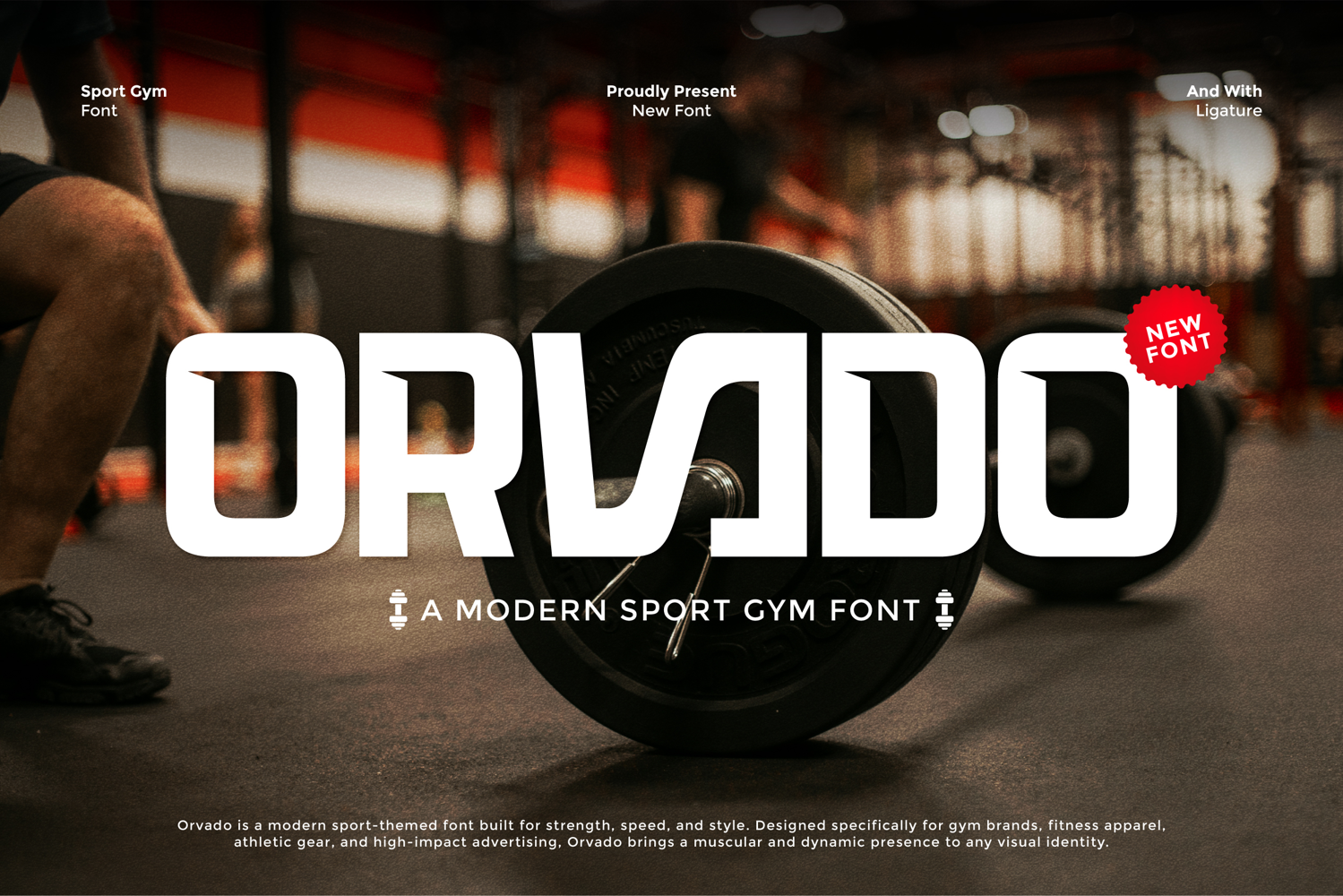
Orvado
ORVADO
ORVADO – Modern Sport Gym Font
ORVADO is a modern display font crafted for the world of sports, gym, and dynamic branding. With its bold structure, sharp edges, and powerful presence, ORVADO brings energy and strength to every design it touches. Whether you're working on athletic apparel, gym promotions, or bold logo projects, ORVADO delivers impact and clarity in every letterform. It captures the essence of movement and discipline, making it a go-to choice for modern fitness brands and high-intensity design concepts.
Who Should Use ORVADO?
ORVADO is made for designers, brands, and creators who want to bring bold energy and a modern athletic vibe to their work. Whether you're building a fitness brand, designing gym posters, creating team logos, or crafting motivational merchandise, ORVADO is the perfect match for strong, standout visuals.
A Must-Have Font for Brand, Logo, and Sport Creators and Designers
ORVADO is the perfect choice for designers and creators who want to elevate their sport-inspired branding. With its bold and energetic form, this font brings a modern edge to fitness logos, gym merchandise, team identities, and high-impact marketing. A must-have for those building brands that embody strength, speed, and determination.
Why Choose ORVADO for Brand and Logo Projects?
ORVADO delivers a dynamic, confident presence that’s perfect for modern branding. Its bold and sporty aesthetic makes it ideal for gym logos, fitness brands, activewear, and energetic design themes. Whether you're creating a logo, a headline, or promotional material, ORVADO ensures your message comes across with power, precision, and a sleek contemporary style.
Suitable For:
• Sport and fitness branding
• Gym and workout apparel
• Athletic team logos and identities
• Energy drink or supplement packaging
• Bold posters and event promotions
• YouTube thumbnails and content for fitness creators
• Gaming and esports team branding